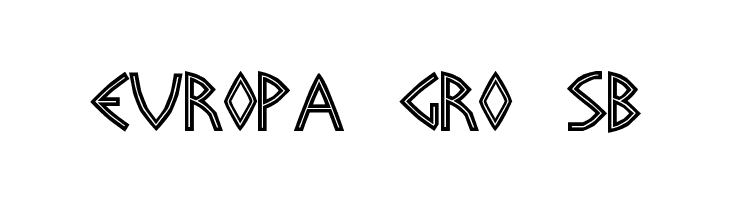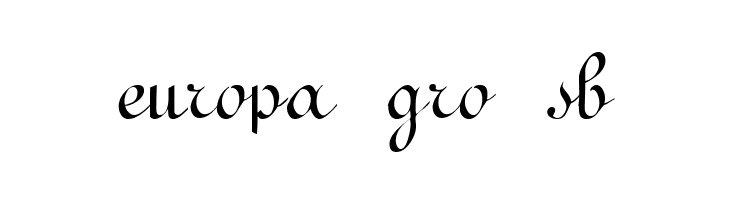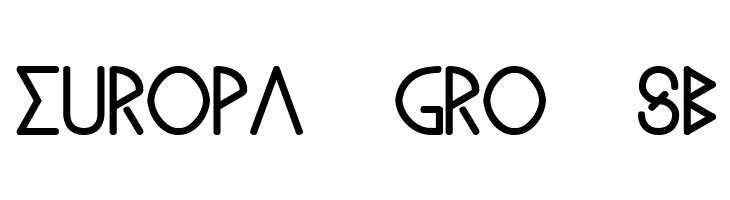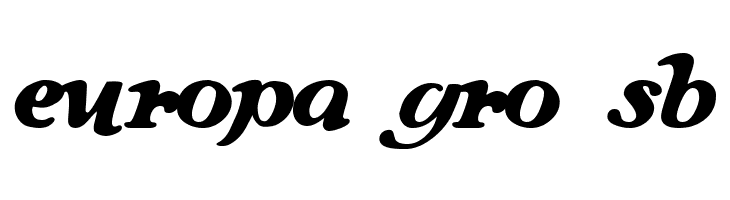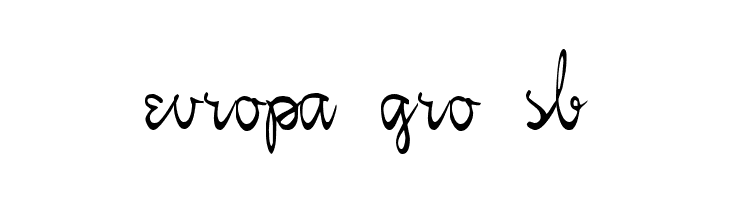
Abaddon Demo Font
A bold, gothic-inspired font with sharp, angular lines and dramatic serifs.
Chelsea Studio Font
A modern, geometric font with bold, angular characters and smooth curves.
Be safe Font
A classic, elegant script font with ornate, flowing letterforms.
Azariel Demo Font
An elegant script font with flowing, interconnected characters and ornate flourishes.
Academy!" Font
A bold, slab serif font with high contrast, ideal for strong, impactful designs.
Abaddon!" Font
Font by The Scriptorium - Dave Nalle
A bold, gothic-inspired font with sharp serifs and a medieval aesthetic.
Samaritan Font
A bold, artistic font with a hand-drawn, dynamic style.
Corabael Font
An elegant script font with flowing, cursive letterforms and graceful swashes.
Bienville Font
An elegant script font with flowing, cursive letterforms and decorative swashes.
Windlass Font
A bold, adventurous serif font with sharp, angular serifs and a distressed look.
Patrician!" Font
A classic serif font with elegant strokes and refined serifs.
Bucephalus Font
Font by Altsys Metamorphosis
A bold, blackletter-inspired font with sharp, angular strokes and a medieval aesthetic.
Caesario Demo Font
A classic serif font with elegant, elongated strokes and pronounced serifs.
Goodfellow Font
A decorative and whimsical font with elongated, artistic characters.
Belphebe Font
Font by The Scriptorium - Dave Nalle
An elegant script font with intricate flourishes and flowing lines.
T4C Beaulieux Font
A classic, ornate blackletter-style font with intricate details and decorative flourishes.
Cityscape!" Font
City skyline silhouettes form each character in a bold, decorative style.
Caswallon Demo Font
An elegant script font with flowing, cursive style and intricate flourishes.
CochinArchaic Font
A classic serif font with elegant, refined characters and a timeless appeal.
Joyeuse!" Font